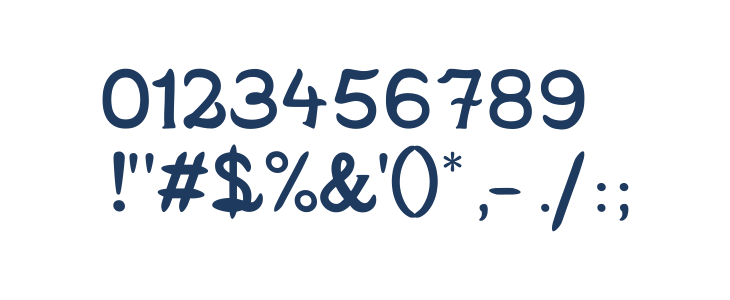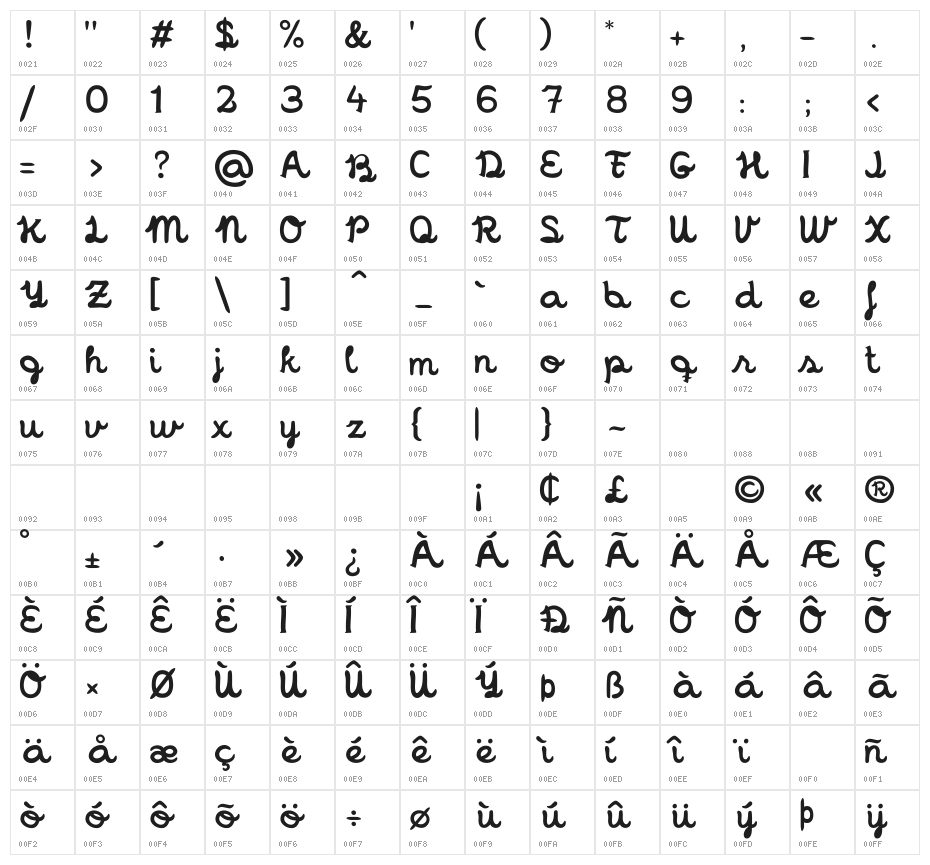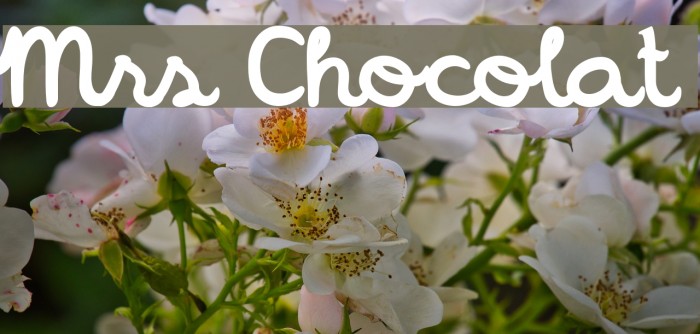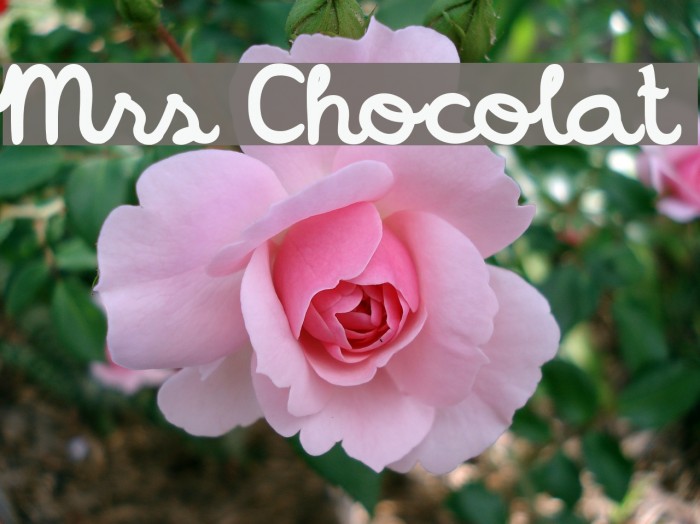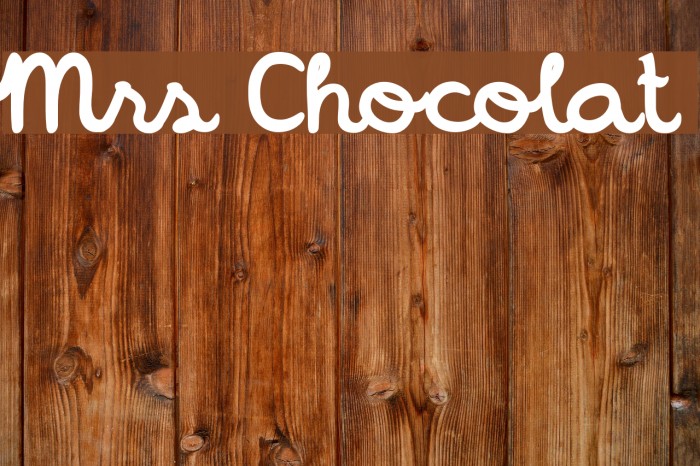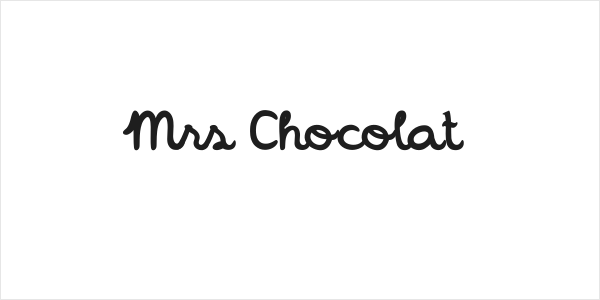
Mrs Chocolat Font
Mrs Chocolat Description
This playful and whimsical font features a handwritten style with a bold and rounded appearance. The characters are connected, giving it a cursive-like flow, yet each letter maintains distinct individuality. The uppercase letters are slightly taller and more pronounced, while the lowercase letters are more compact and rounded. The numbers and special characters follow the same playful style, making them easily recognizable and consistent with the overall design. This font exudes a friendly and approachable vibe, perfect for projects that require a touch of personality and charm.
| Proposed Projects | Ideal for children's books, greeting cards, playful branding, and creative invitations. |